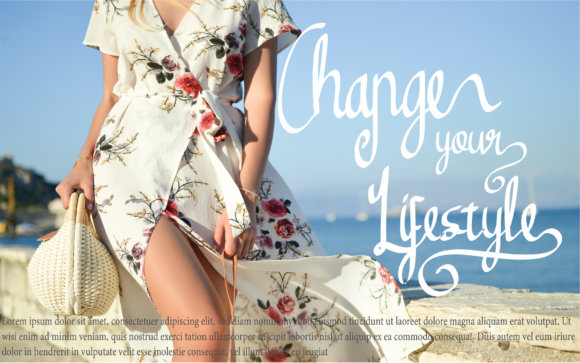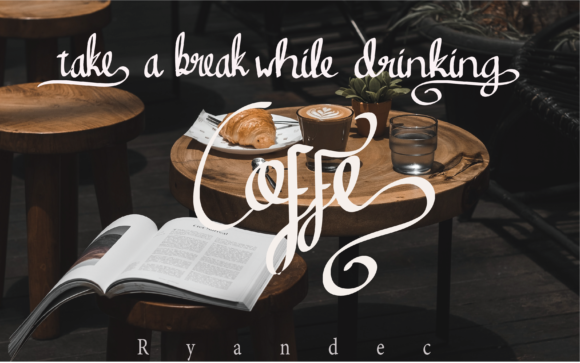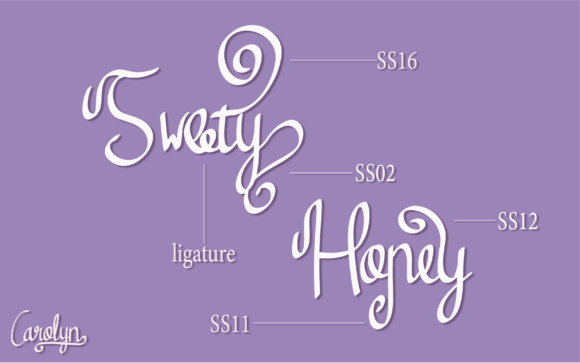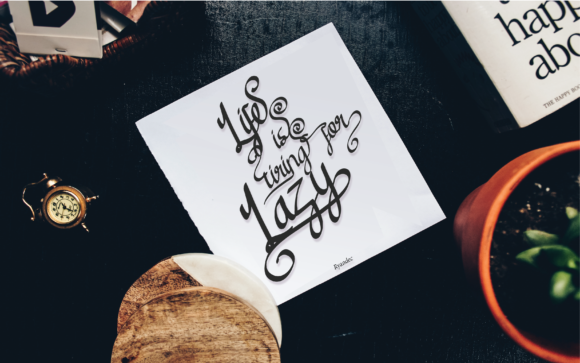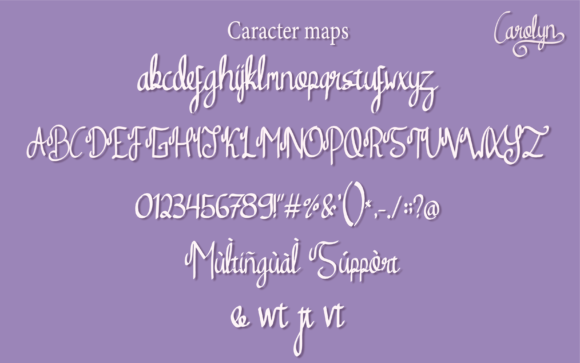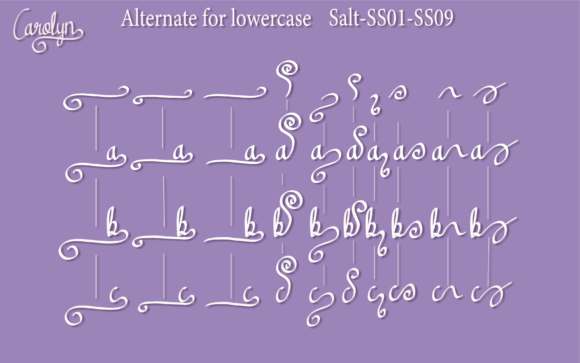
Introducing Carolyn Font: Elevate Your Designs with Elegance and Sophistication
Are you a designer or crafter looking for a font that can add a touch of elegance and sophistication to your projects? Look no further than Carolyn Font, a stylish and delicate handwriting font that is sure to make your designs come alive. With its unique and beautiful touch, Carolyn Font is the perfect choice for anyone looking to add a personal and creative flair to their work.
What Makes Carolyn Font So Special?
Carolyn Font is a one-of-a-kind handwriting font that boasts a range of features that set it apart from other fonts on the market. Here are just a few reasons why Carolyn Font is a must-have for designers and crafters:
- Unique and Beautiful Touch: Every letter in Carolyn Font has been carefully crafted to have a unique and beautiful touch, making it perfect for adding a personal touch to your designs.
- PUA Encoded: Carolyn Font is PUA encoded, which means that you can access all glyphs and swashes with ease. This makes it simple to customize your designs and add a range of flourishes and details.
- Stylish and Delicate: Carolyn Font is a stylish and delicate handwriting font that is perfect for adding a touch of elegance and sophistication to your designs.
Uses for Carolyn Font
Carolyn Font is a versatile font that can be used in a range of design projects, including:
- Stationery and Invitations: Add a touch of elegance and sophistication to your stationery and invitations with Carolyn Font.
- Branding and Packaging: Use Carolyn Font to create beautiful and eye-catching branding and packaging for your business or product.
- Digital Designs: Carolyn Font is perfect for use in digital designs, such as social media graphics, blog posts, and website headers.
- Crafting and Scrapbooking: Add a personal touch to your crafting and scrapbooking projects with Carolyn Font.
Tips for Using Carolyn Font
Here are a few tips for getting the most out of Carolyn Font:
- Experiment with Different Sizes and Colors: Carolyn Font looks great in a range of sizes and colors, so don’t be afraid to experiment and find the perfect combination for your design.
- Pair with Other Fonts: Carolyn Font pairs well with a range of other fonts, so try pairing it with a bold font for a striking contrast.
- Use Swashes and Glyphs: Take advantage of the PUA encoding in Carolyn Font by using swashes and glyphs to add a range of flourishes and details to your design.